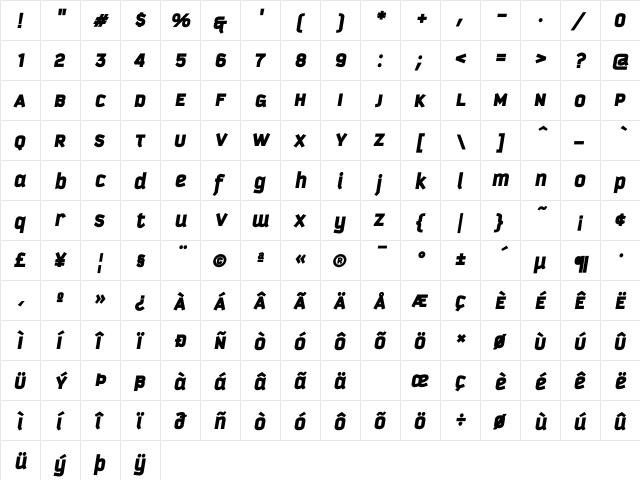
KautivaUni Black Italic
Design Context for KautivaUni Black Typeface
KautivaUni Black offers clean, dependable letterforms without strong stylistic allegiance, making it a practical choice for designers who need flexibility. The dynamic lean of this cut emphasises speed and emphasis in any layout.
Pro Tip: Use KautivaUni Black for emphasis, pull quotes, and subheadings where its slanted energy can add rhythm to the layout.